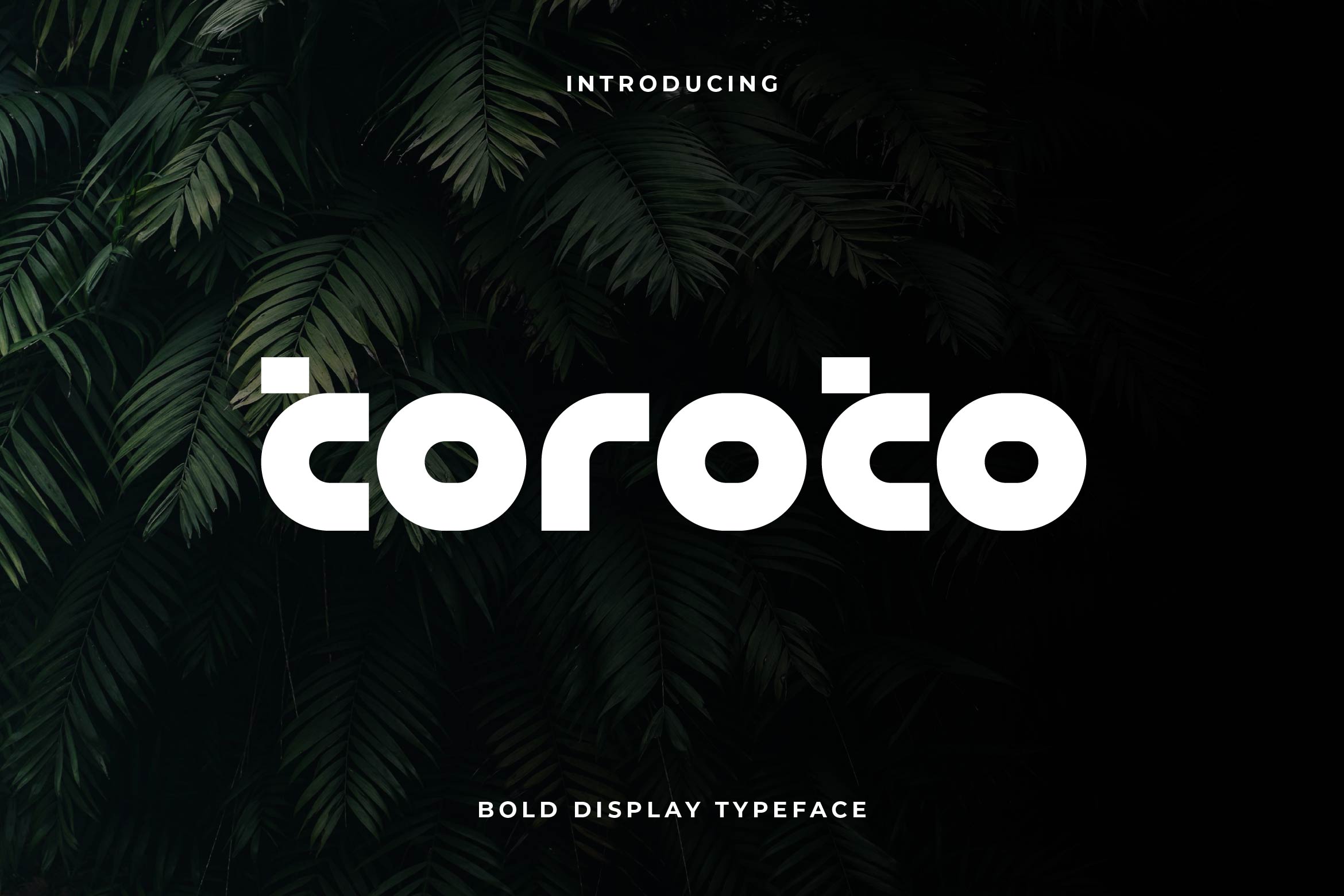
- Toroto Bold Sans Serif Font
Toroto is a powerful bold sans serif font crafted for impactful logo design and confident visual identity. With thick, clean strokes and balanced proportions, Toroto delivers a strong, modern presence that instantly elevates any brand. Its sharp structure and solid geometry make it perfect for logos, headlines, packaging, sports branding, tech visuals, and bold marketing materials.
Designed for maximum clarity and memorability, Toroto performs exceptionally well in both large display sizes and digital environments. The font’s sturdy forms create a sense of reliability and authority while maintaining a clean, contemporary aesthetic.
Toroto includes uppercase and lowercase letters, numerals, punctuation, multilingual support, and versatile alternates to help you build a unique and recognizable brand style.
Choose Toroto for a bold sans logo font that communicates strength, confidence, and modern design excellence.